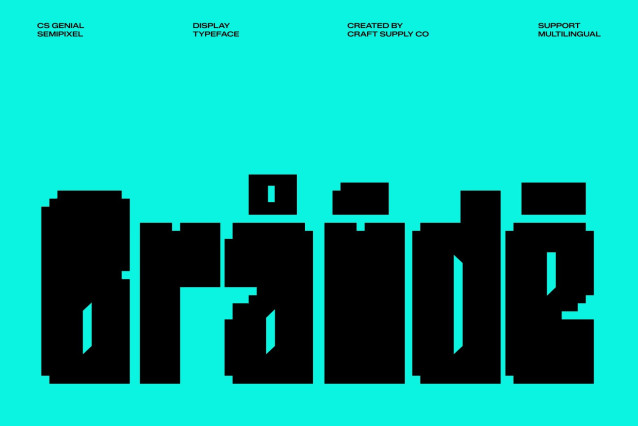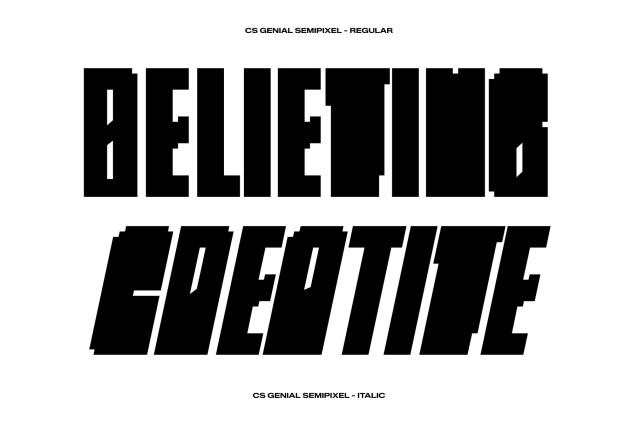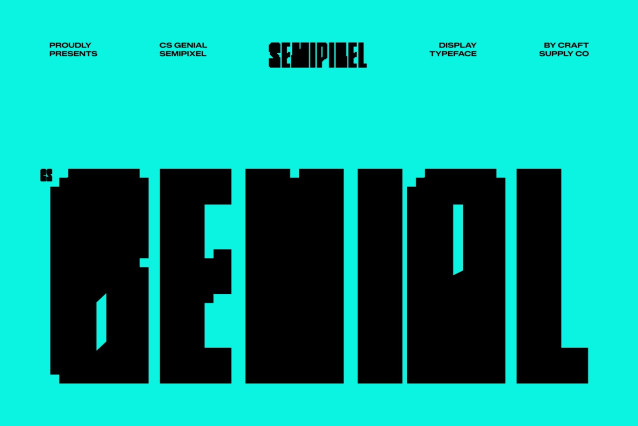
CS Genial Semipixel – Condensed Display Font: Where Compact Strength Meets Smooth Digital Style
Bold Narrow Forms for Maximum Visual Impact
This is a modern condensed display font crafted to deliver bold visual impact in limited space. Its narrow proportions and strong geometric structure create a powerful and efficient appearance that feels modern, energetic, and highly attention-grabbing. Every character is designed to maximize presence while maintaining clarity, making the font perfect for impactful layouts and compact compositions.
Semipixel Style with Smooth Pixel Refinement
This font offers a smoother and more sophisticated appearance than traditional rigid pixel fonts. The semipixel construction softens the geometry while preserving its retro-digital identity, resulting in a typeface that feels sleek, futuristic, and highly readable.